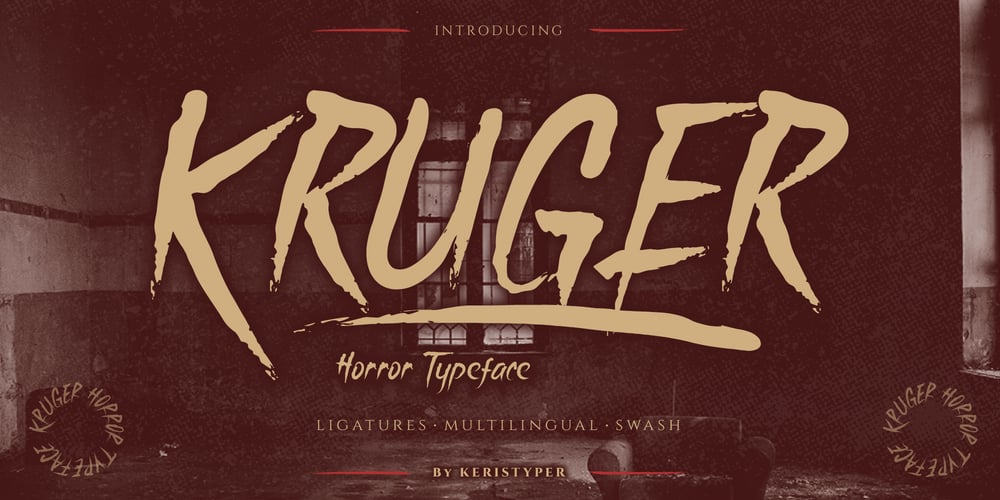
Kruger Font Family was designed by Tezar Tantular and published by Keristyper Studio. Kruger contains 1 styles and family package options. Kruger is a Horror font ready to be splattered on your design projects. Inspired by horror movies. This font is good for logo design, Social media, Movie Titles, Books Titles, short text even long text letters, and good for your secondary text font with sans or serif.Featured: Standard Uppercase & Lowercase Numeral & Punctuation Multilingual : ä ö ü Ä Ö Ü ß ¿ ¡ Alternate & Ligature PUA encoded We recommend programs that support the OpenType feature and the Glyphs panel such as Adobe applications or Corel Draw. so you can use all the variations of the glyphs. Hope you enjoy our fonts!